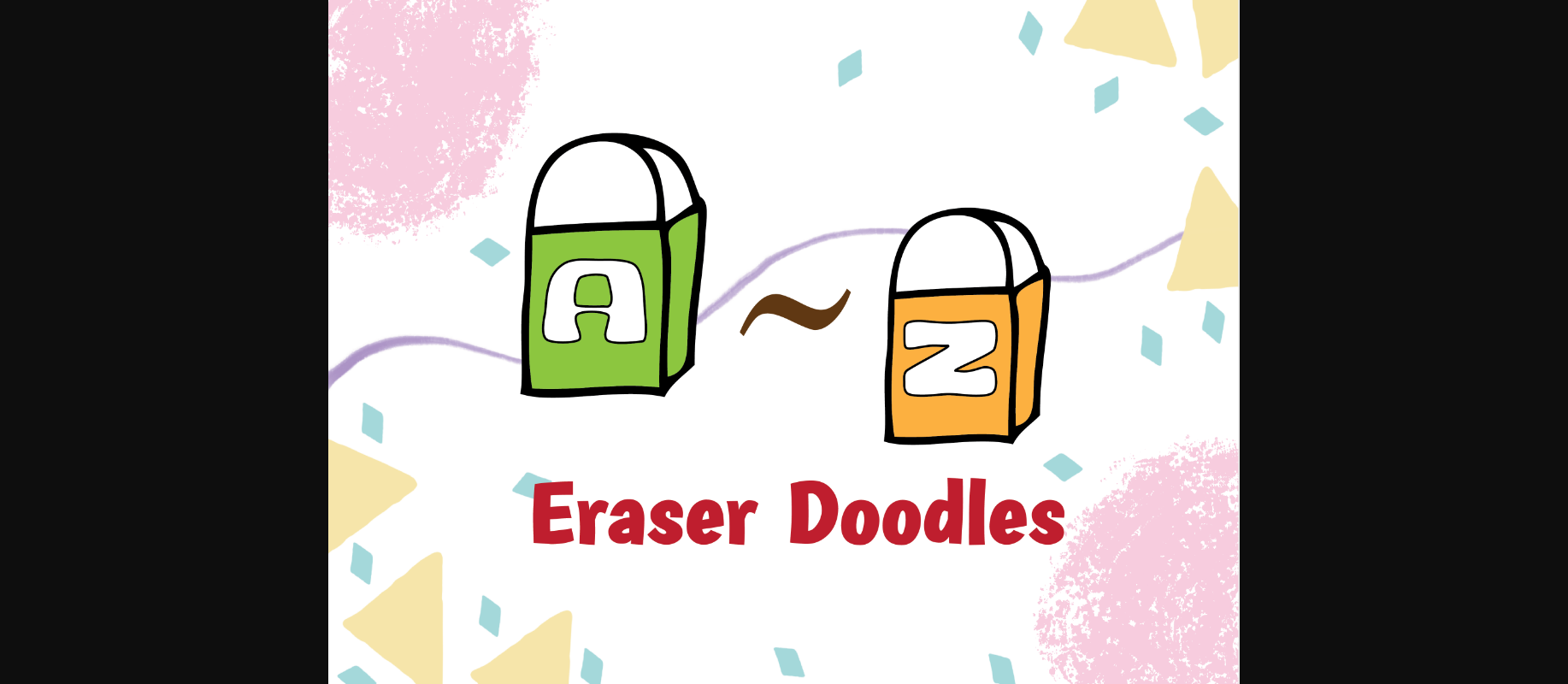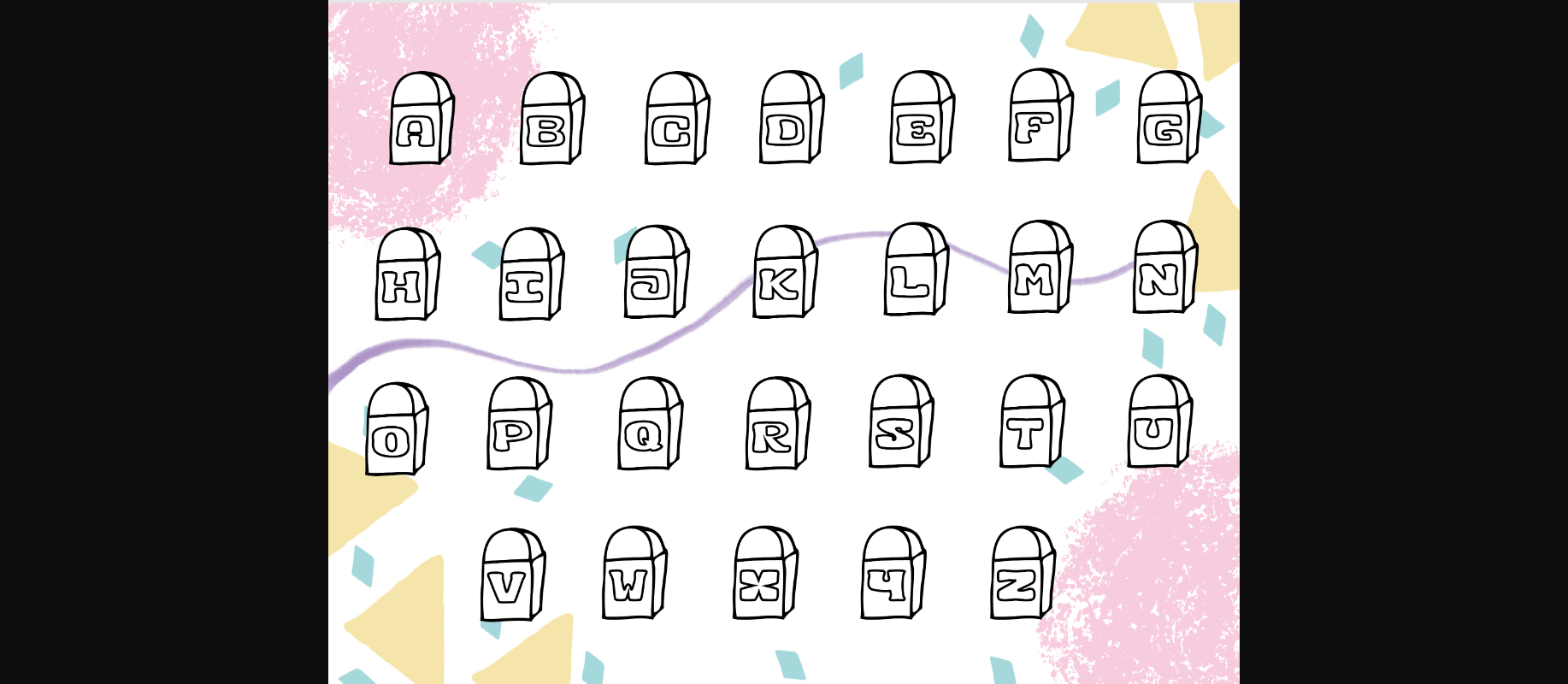
About Eraser Doodles Font
Eraser Doodles is a fun and interesting decorative font. Its friendly vibe is perfect for creating lovely designs, ranging from stickers to posters, planners, and more!